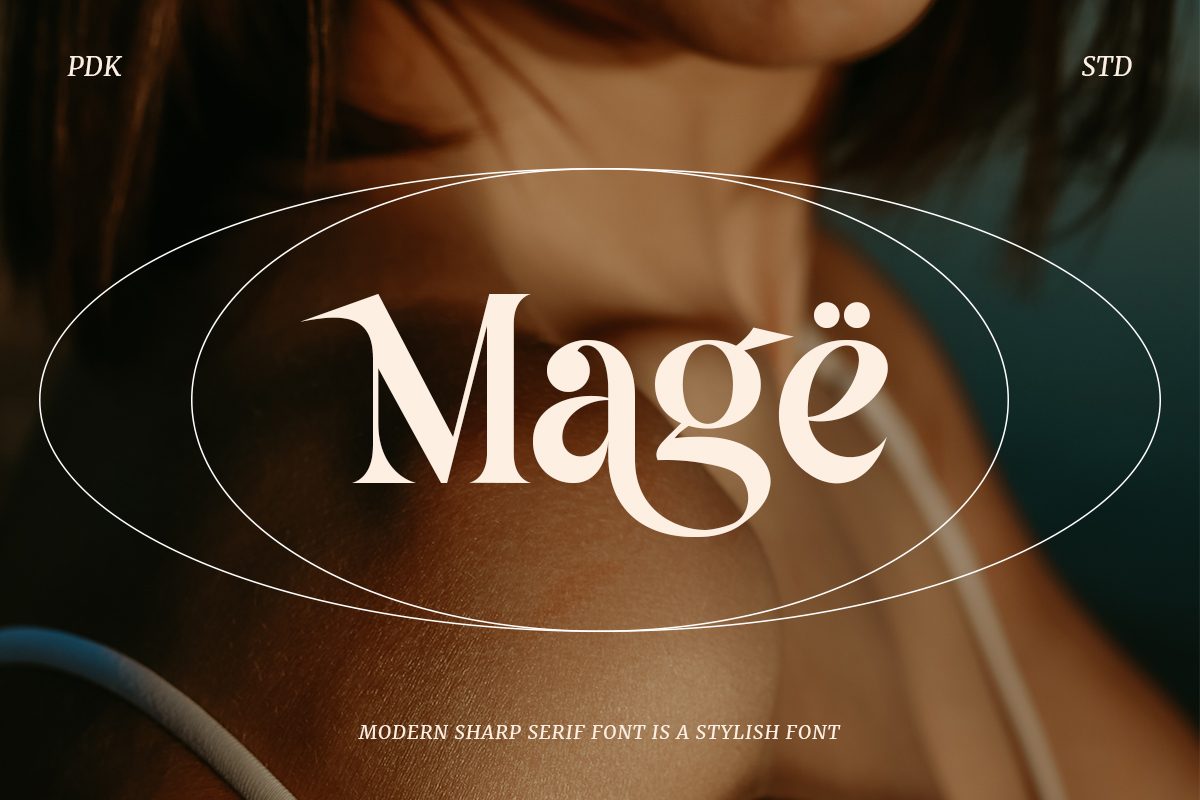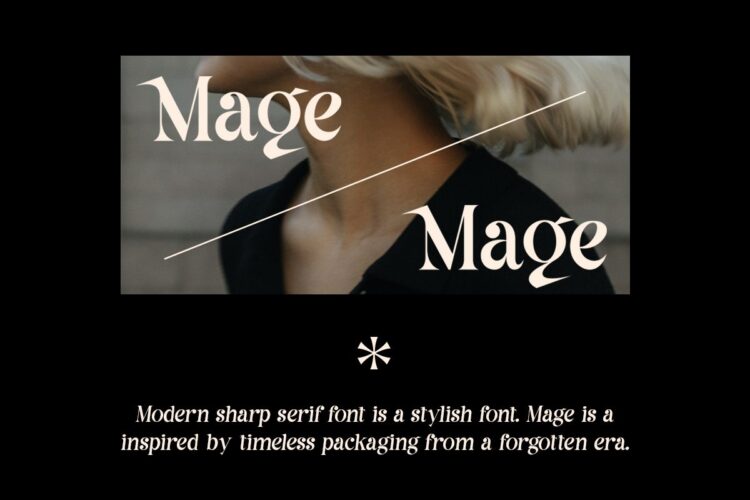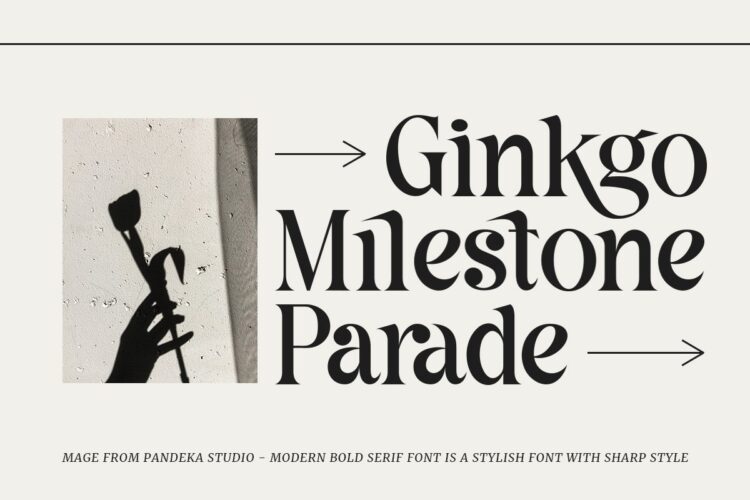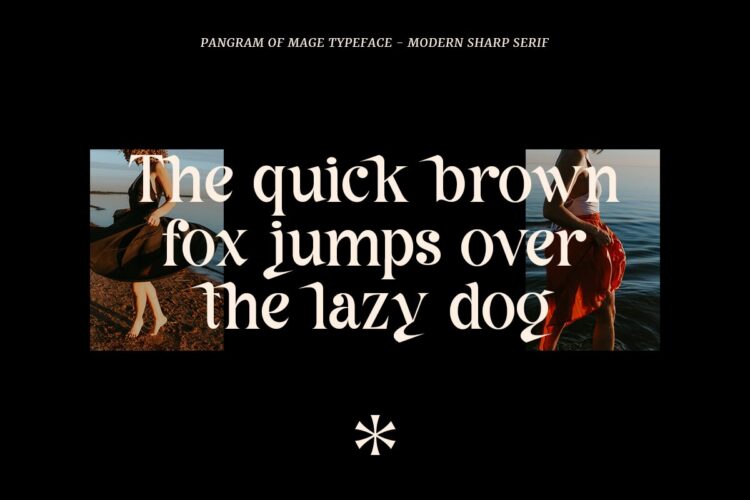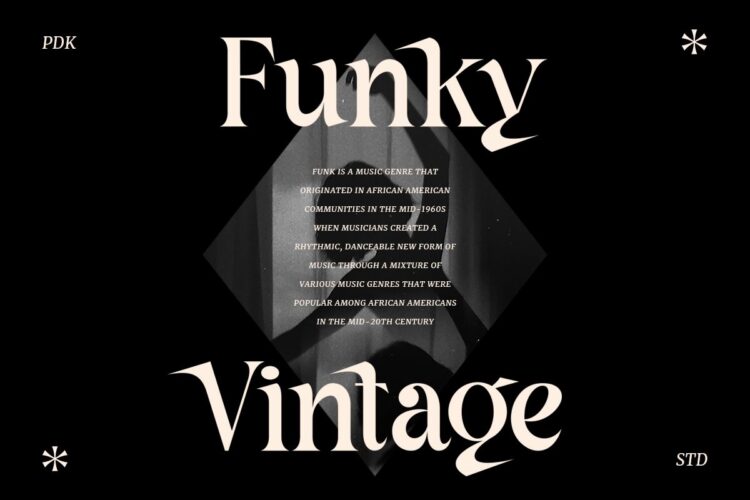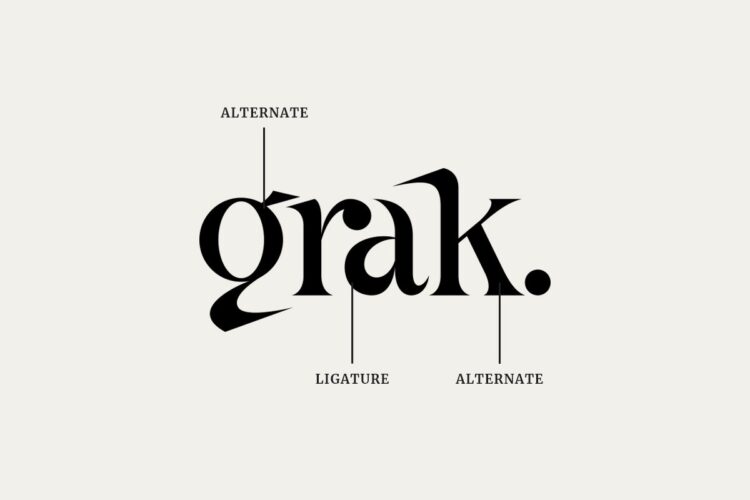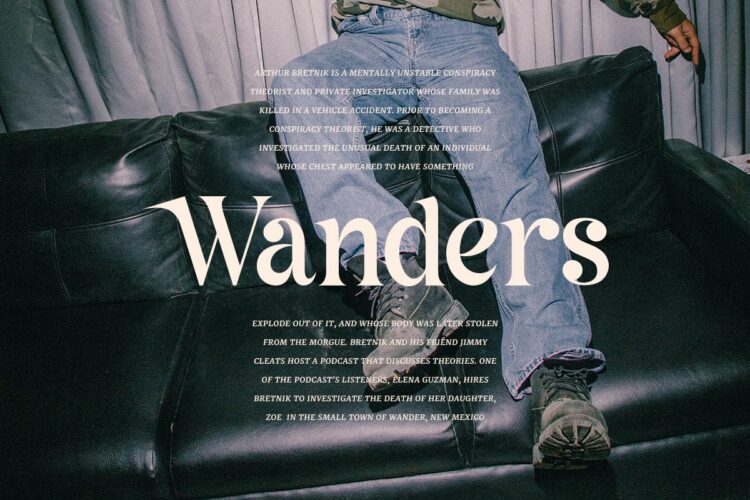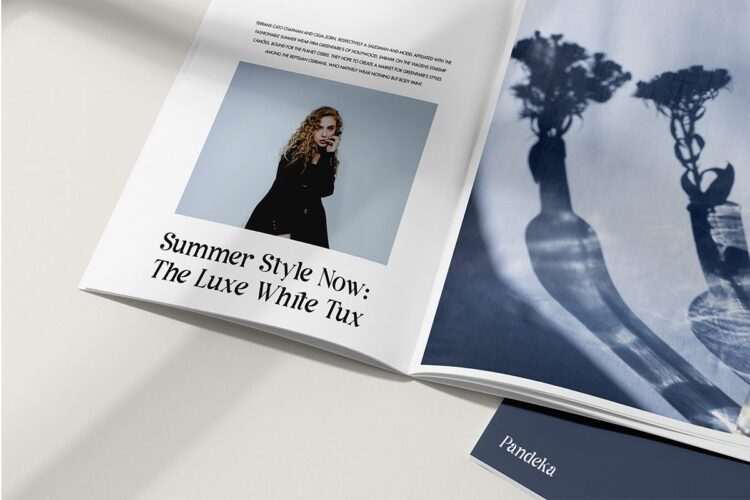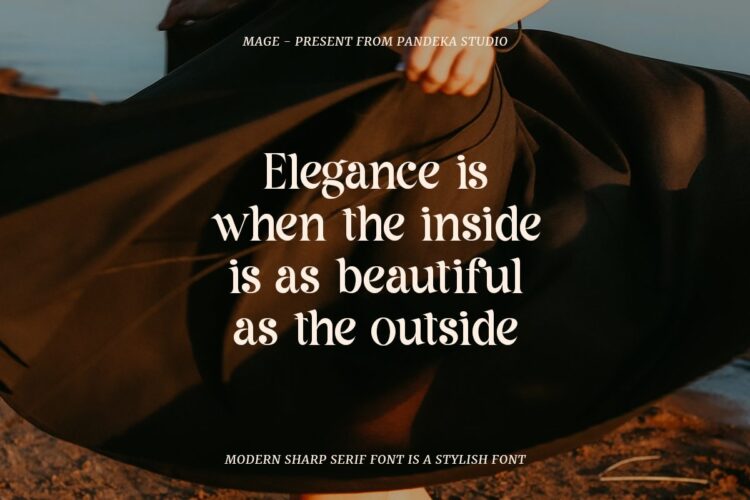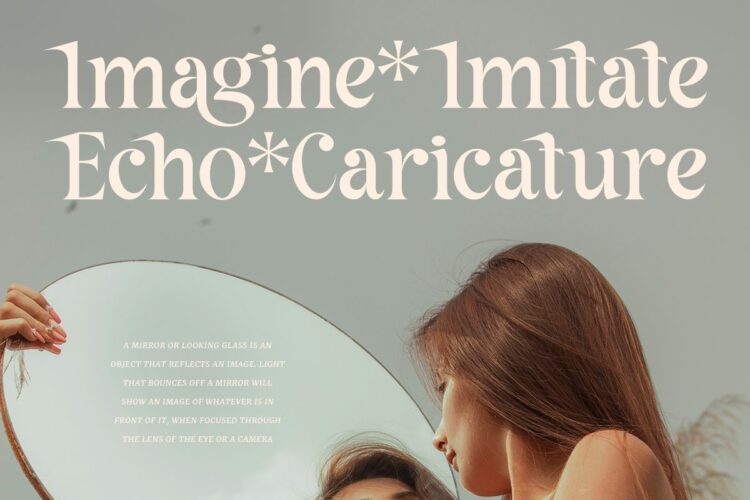
modern sharp serif font
Mage Regular
Mage Italic
Introducing new sharp style font, Mage!
Mage – A serif typeface with an experimental and sharp style. Mage is inspired by timeless packaging from a forgotten era. It has a beautiful range of stylistic alternates with unique characters.
Mage – fearless and chic typeface perfect for big headlines for both print and web. It comes with Italic style, unique lower and uppercase plus numbers, punctuation & multilingual letters
• Has 37 beautiful alternates and ligatures
• Multilingual Support
Mage – Modern Sharp Serif Font